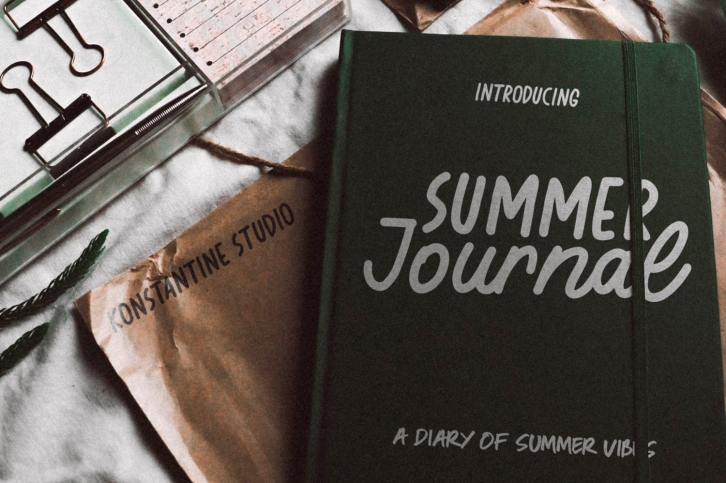
Summer Journal is a vintage and comprehensive duo font (script and sans serif), ideal for giving your projects a branded but friendly feel. The two included styles can be combined together perfectly but are also beautiful on their own.